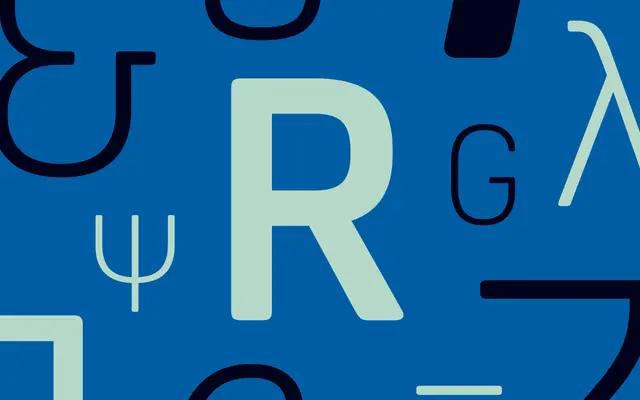
Oscine
Dalton Maag · Bruno Maag, Deiverson Ribeiro, Rafael Saraiva
A soft square sans by Bruno Maag, Deiverson Ribeiro and Rafael Saraiva, pairing an unusual lowercase with more conventional capitals.
A soft square sans by Bruno Maag, Deiverson Ribeiro and Rafael Saraiva. The lowercase carries a distinctive spurless construction with softened straight terminals, while the capitals stay closer to the convention so the family reads as friendly without losing structure. Eight styles run from Light to XBold with true italics, supported across Cyrillic, Greek and Latin. Suits children's brands, hospitality and consumer identities that want warmth with a modular accent.
Dalton Maag describe Oscine as a sans typeface featuring an unusual lowercase paired with more conventional capitals, with distinctive square shapes softened by rounded corners.